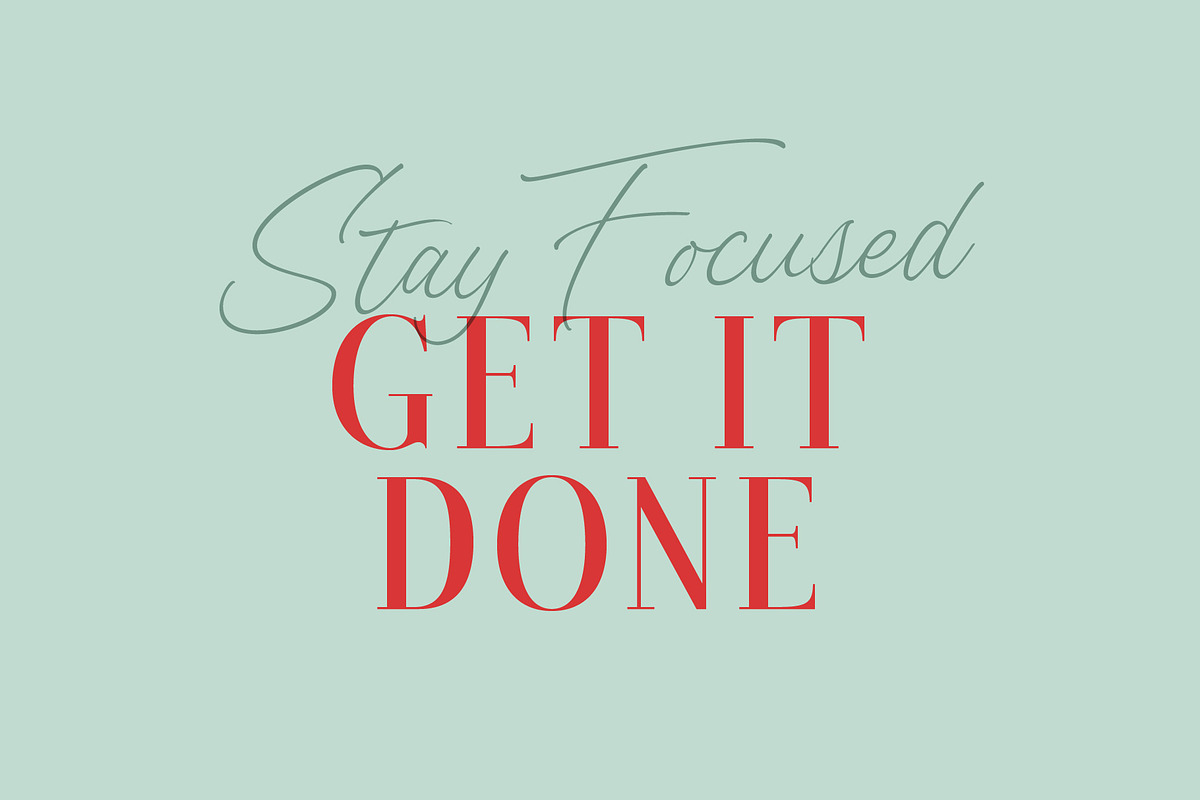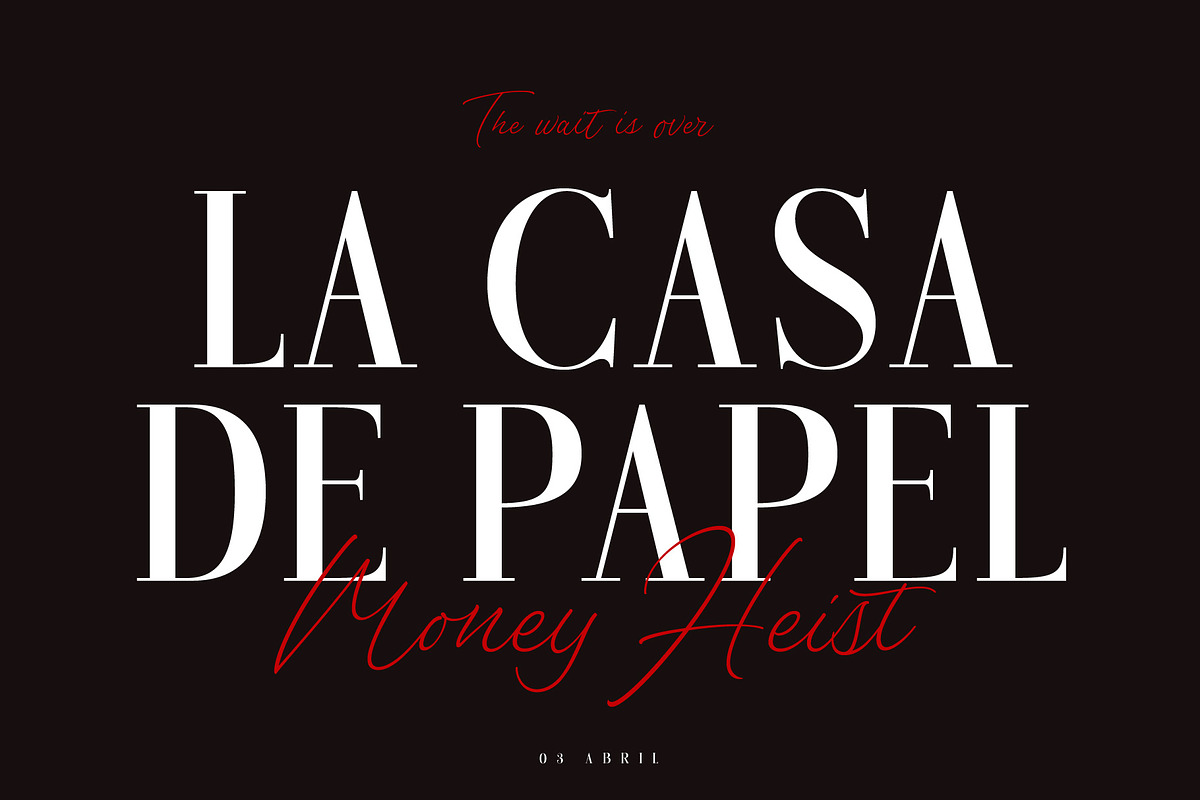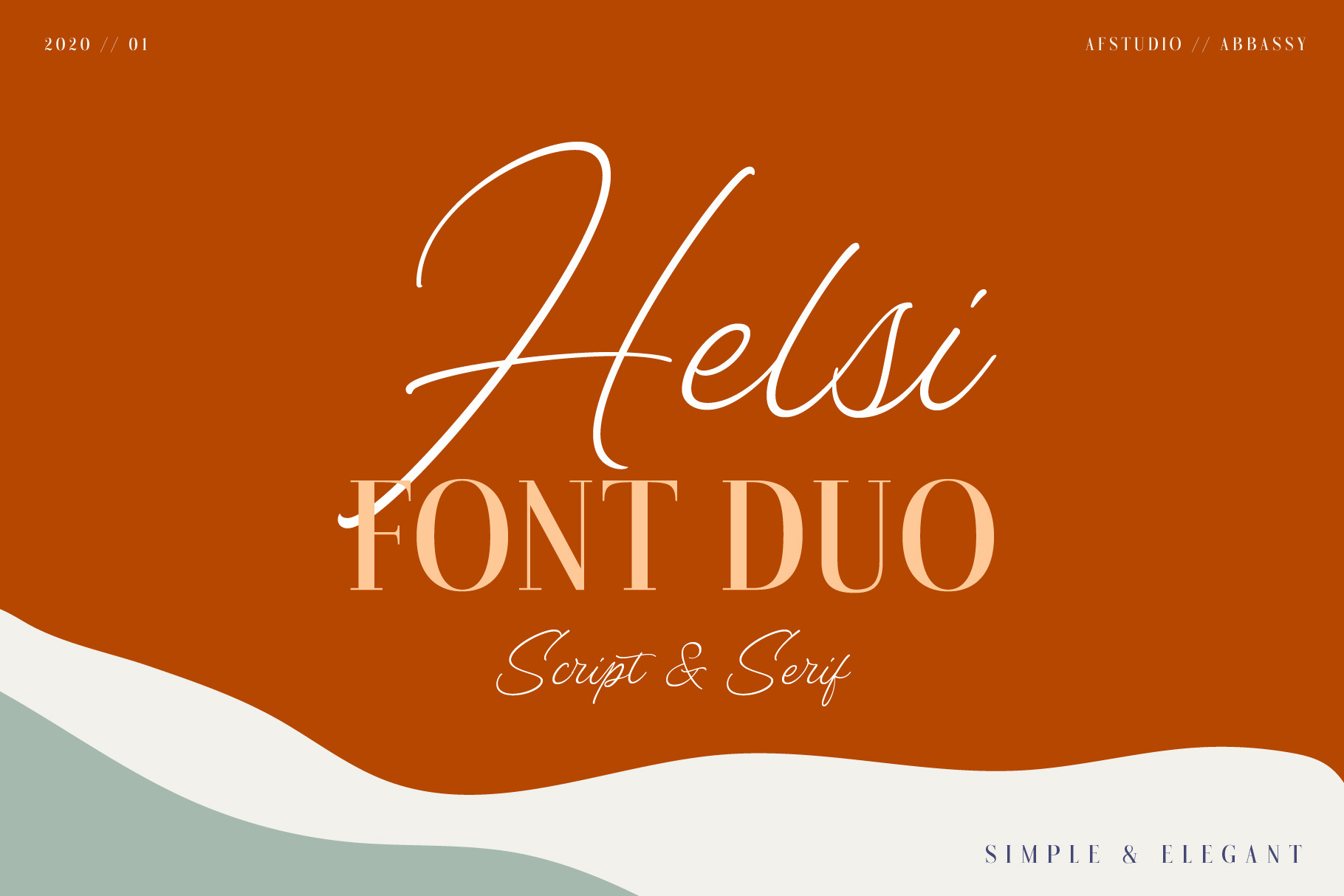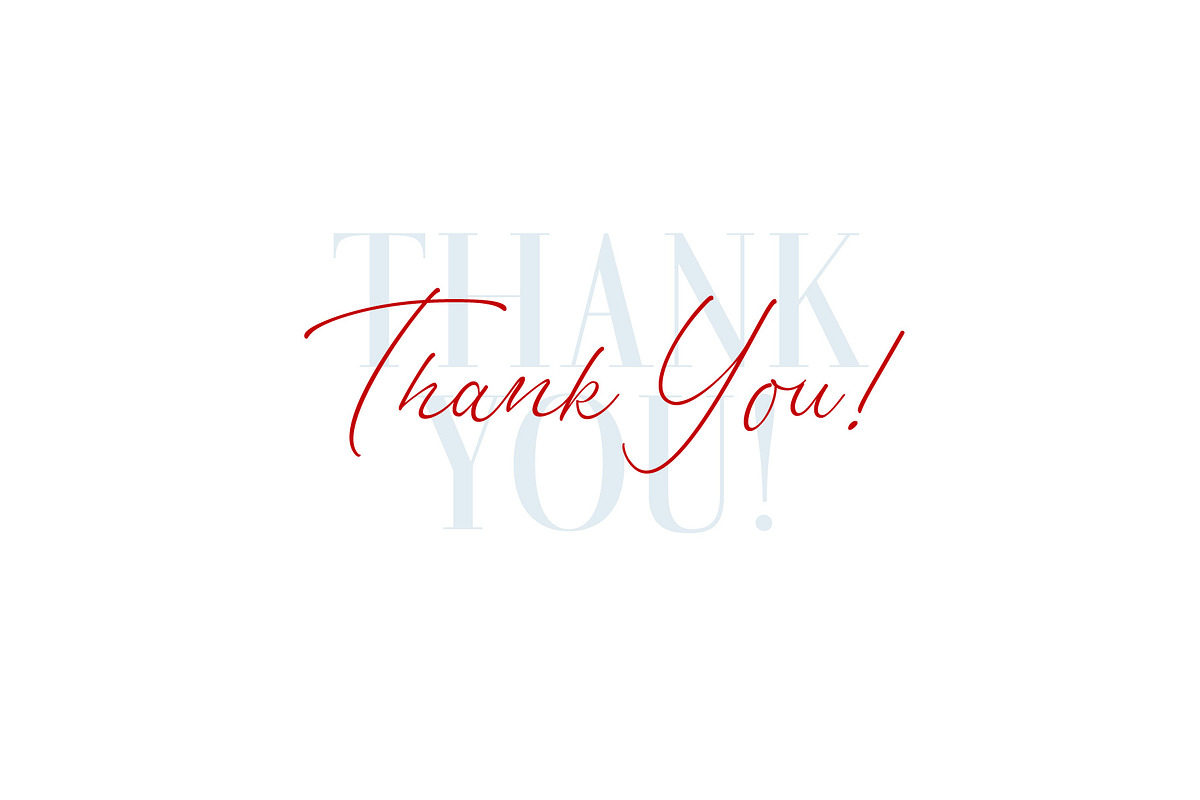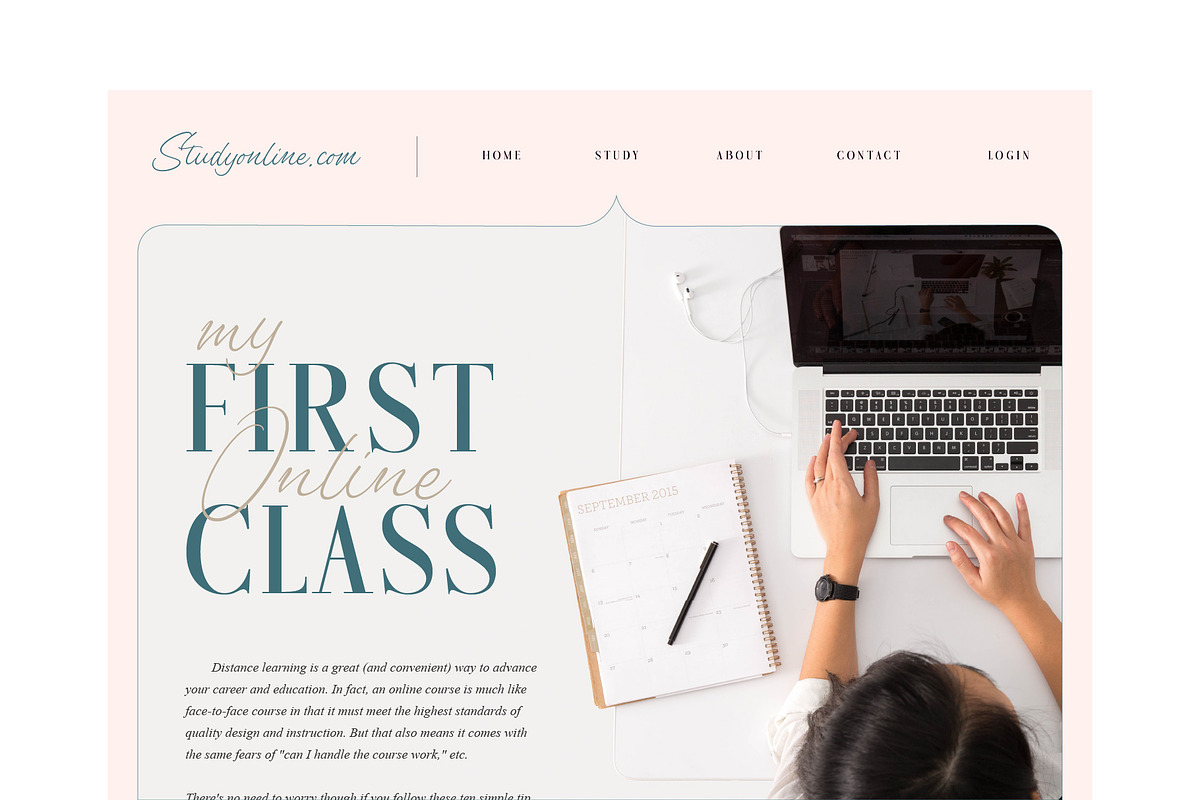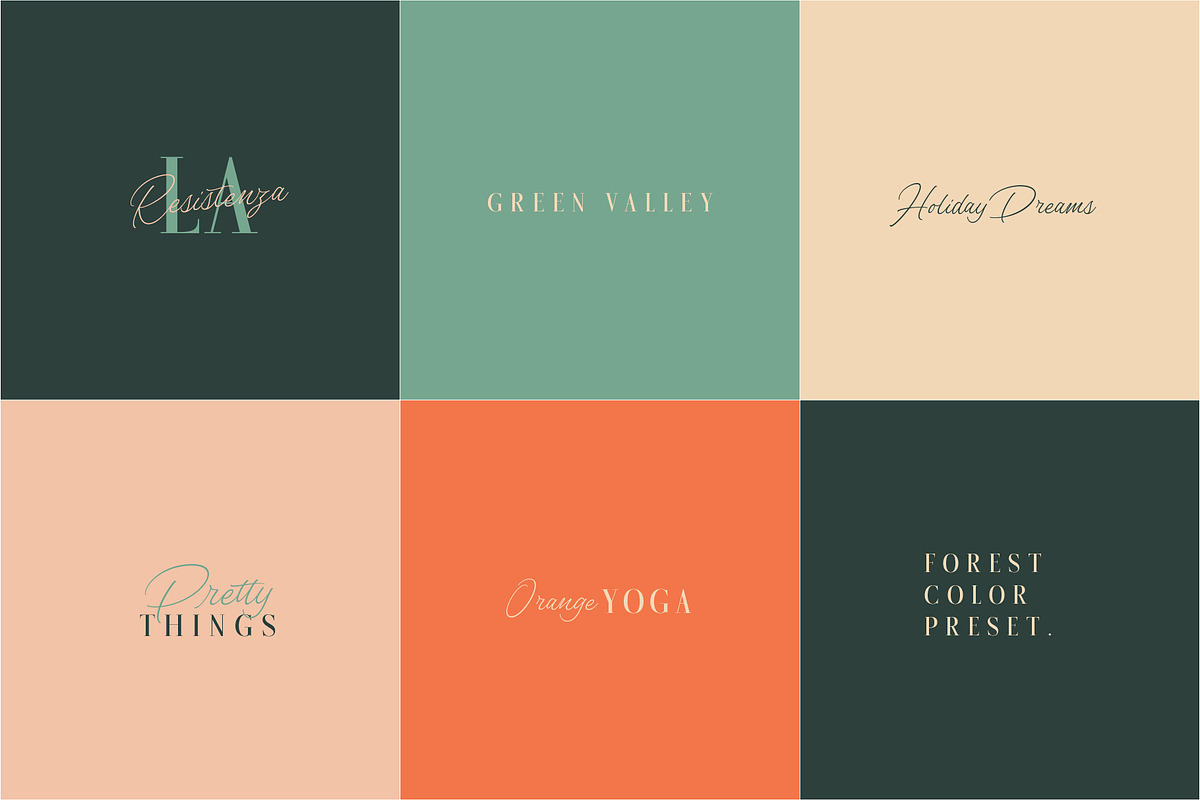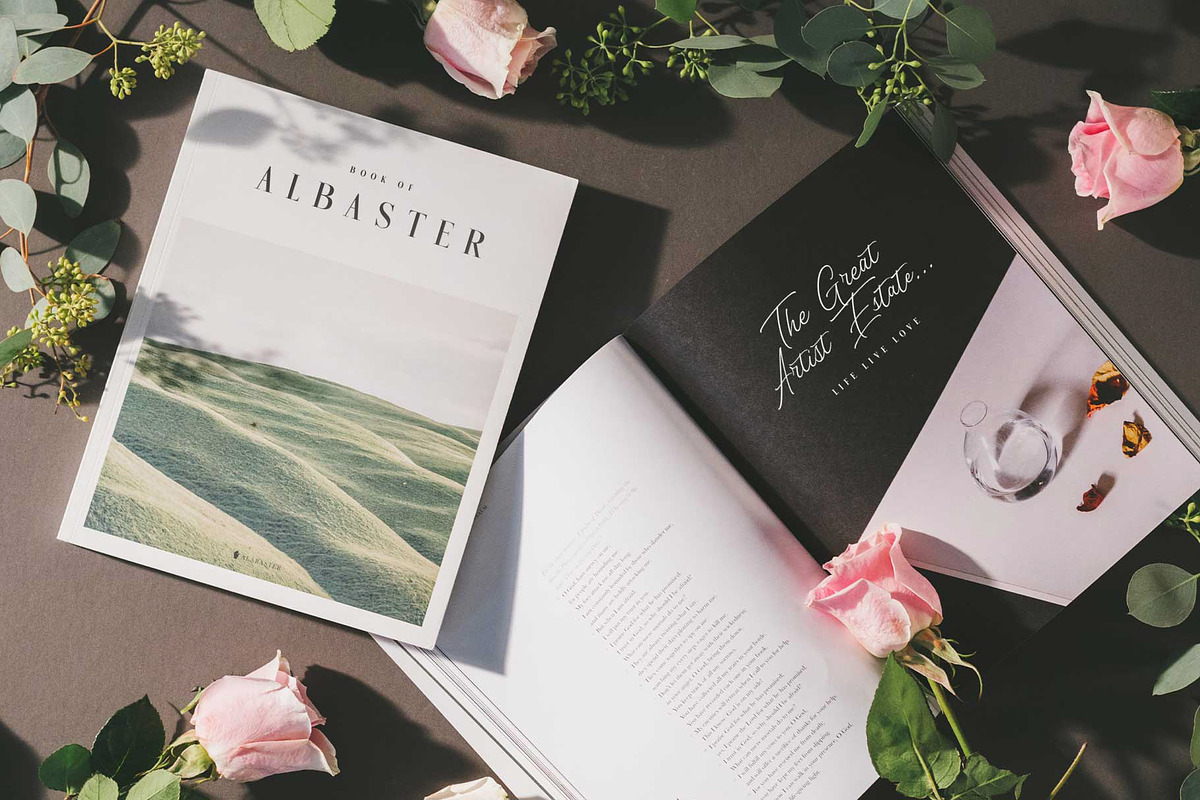
Helsi - Font Duo Script & Serif
Helsi - Another Luxury Font Pair Script & Serif.
In life everybody sometimes got serious, focus, strong, thinking, and etc. But sometimes life must be enjoy, relax, breath, fun, smiling, laughing and etc.
So I presented the great font pair between 'serious and enjoy' with the name Helsi. Handwritten with some touch of signature style of font combined with serif font to matching up the needs. On the Script version is created with a freedom of writing by a hand and Serif clean crafted by a pixel perfection. Both of them are comes with Multiple Language such as European and Western Character. The features created are not as huge as my product before, I just create what I think must need such as Ligatures.
Helsi also support multilanguage :
Afrikaans, Albanian, Asu, Basque, Bemba, Bena, Catalan, Chiga, Cornish, Danish, Dutch, English, Faroese, Filipino, French, Friulian, Galician, German, Gusii, Icelandic, Indonesian, Irish, Italian, Kabuverdianu, Kalenjin, Kinyarwanda, Low German, Luo, Luxembourgish, Luyia, Machame, Makhuwa-Meetto, Makonde, Malagasy, Malay, Manx, Morisyen, North Ndebele, Norwegian Bokmål, Norwegian Nynorsk, Nyankole, Oromo, Portuguese, Romansh, Rombo, Rundi, Rwa, Samburu, Sango, Sangu, Scottish Gaelic, Sena, Shambala, Shona, Soga, Somali, Spanish, Swahili, Swedish, Swiss German, Taita, Teso, Vunjo, Welsh, Western Frisian, Zulu